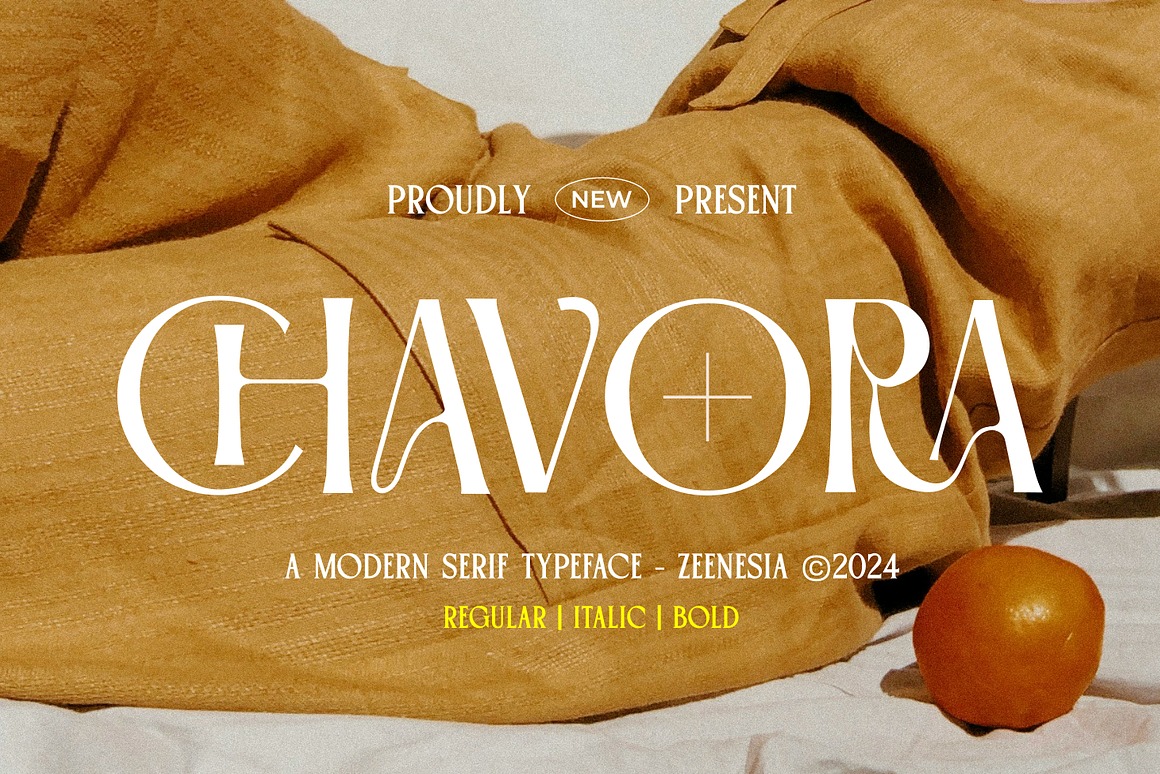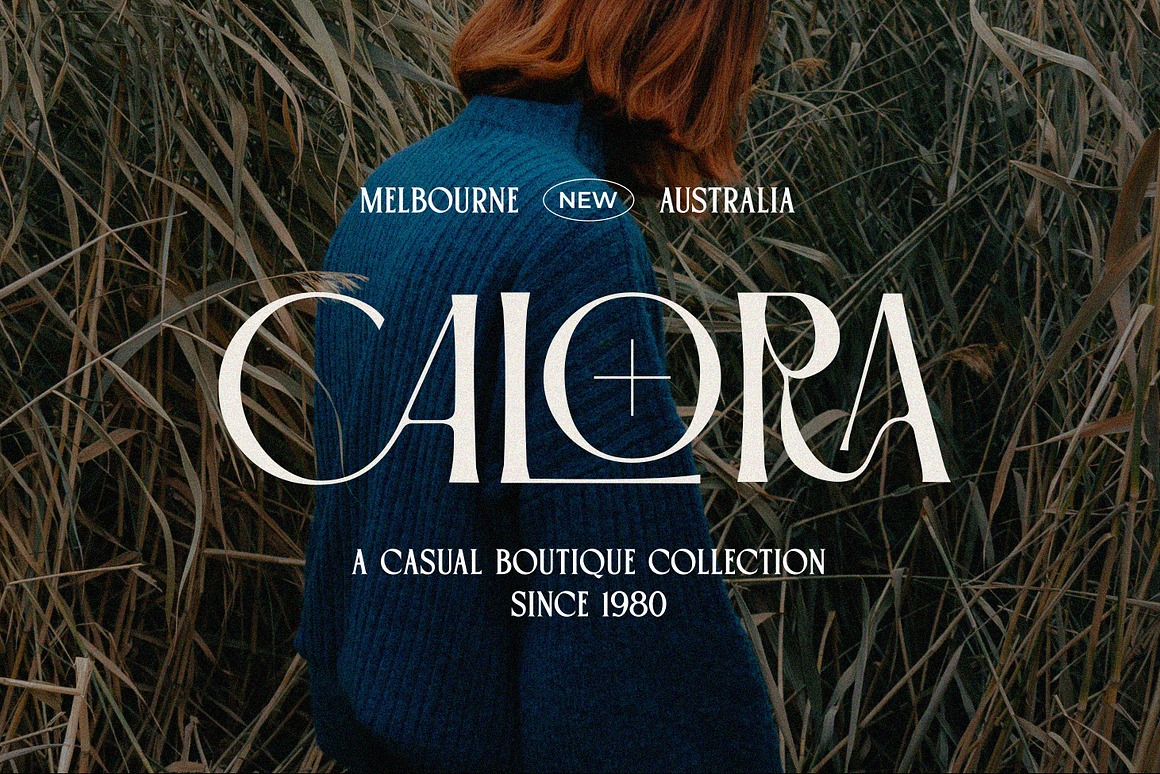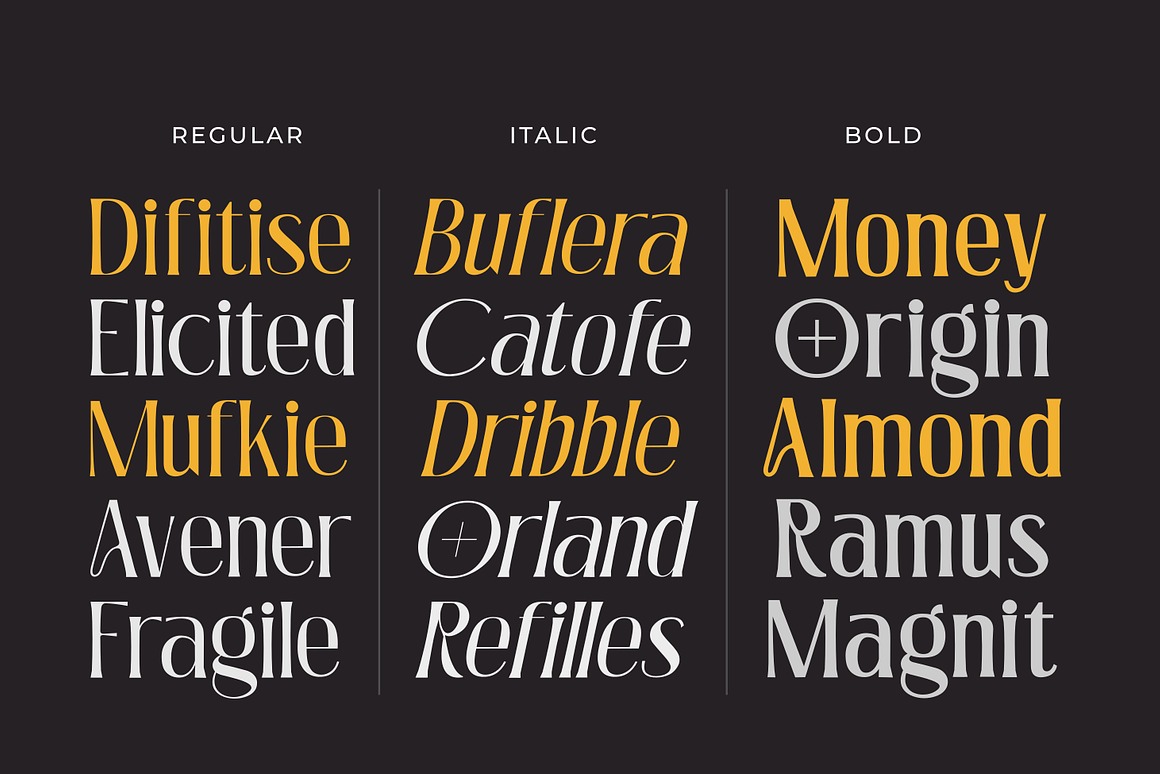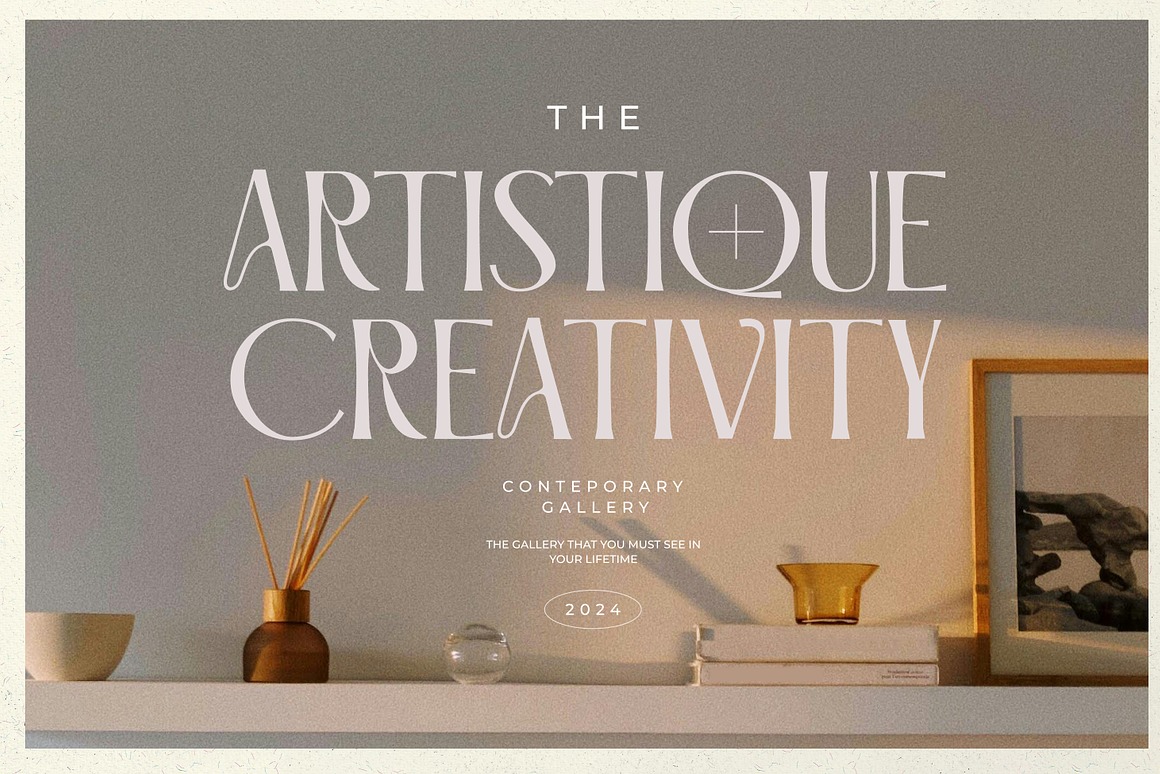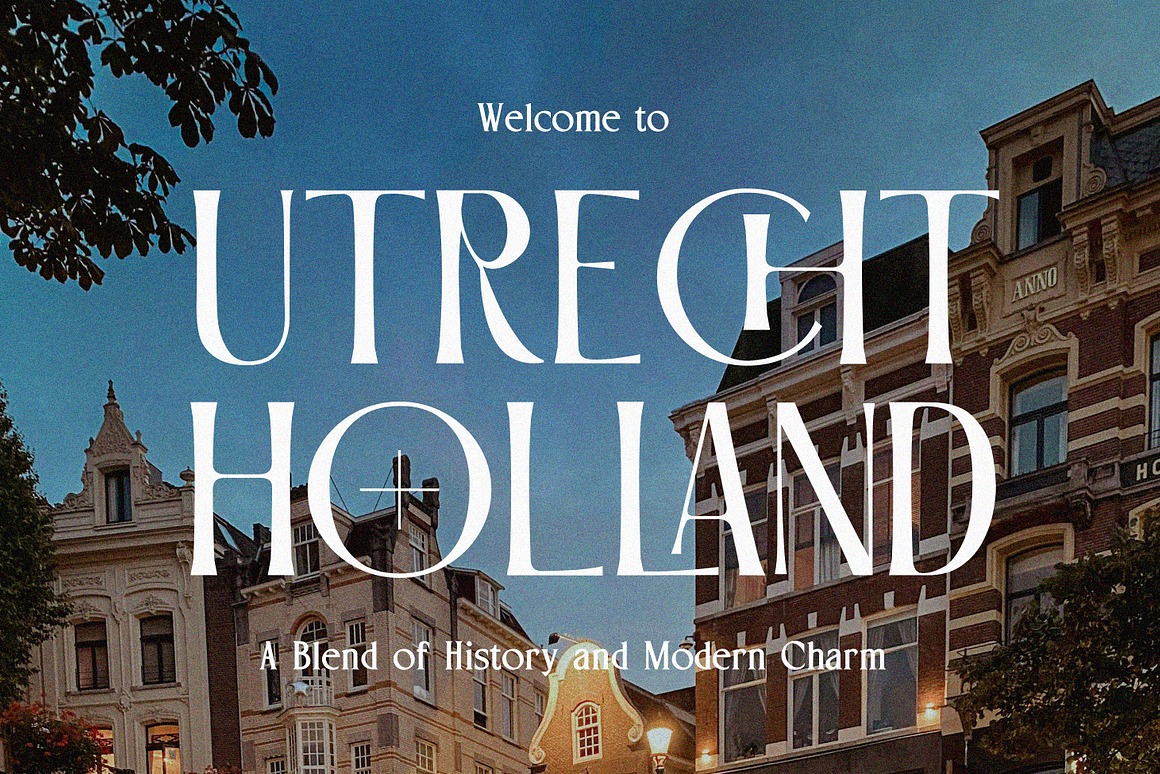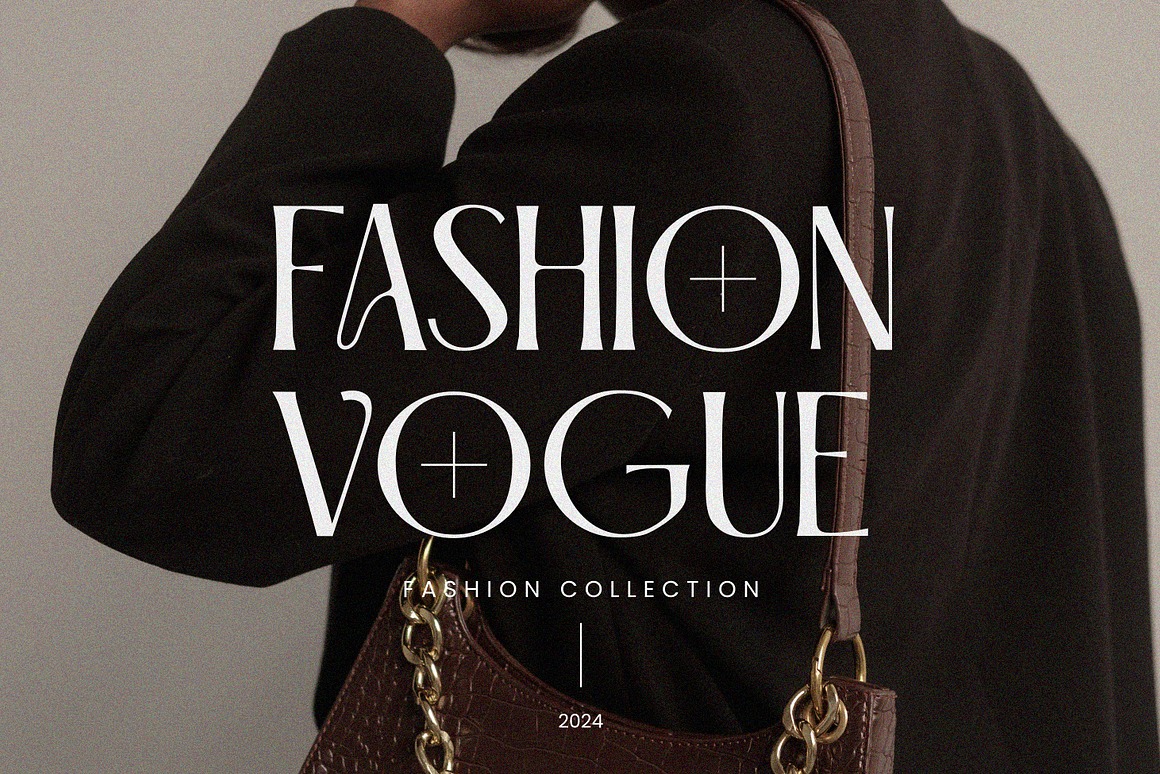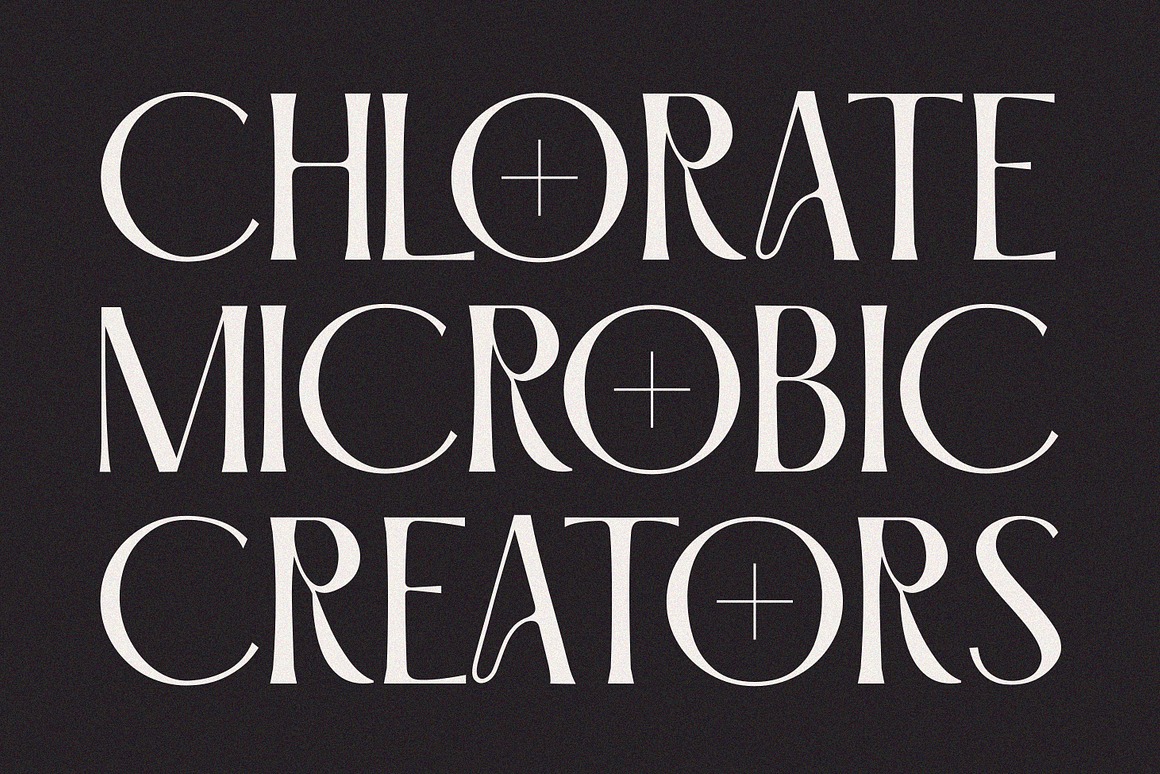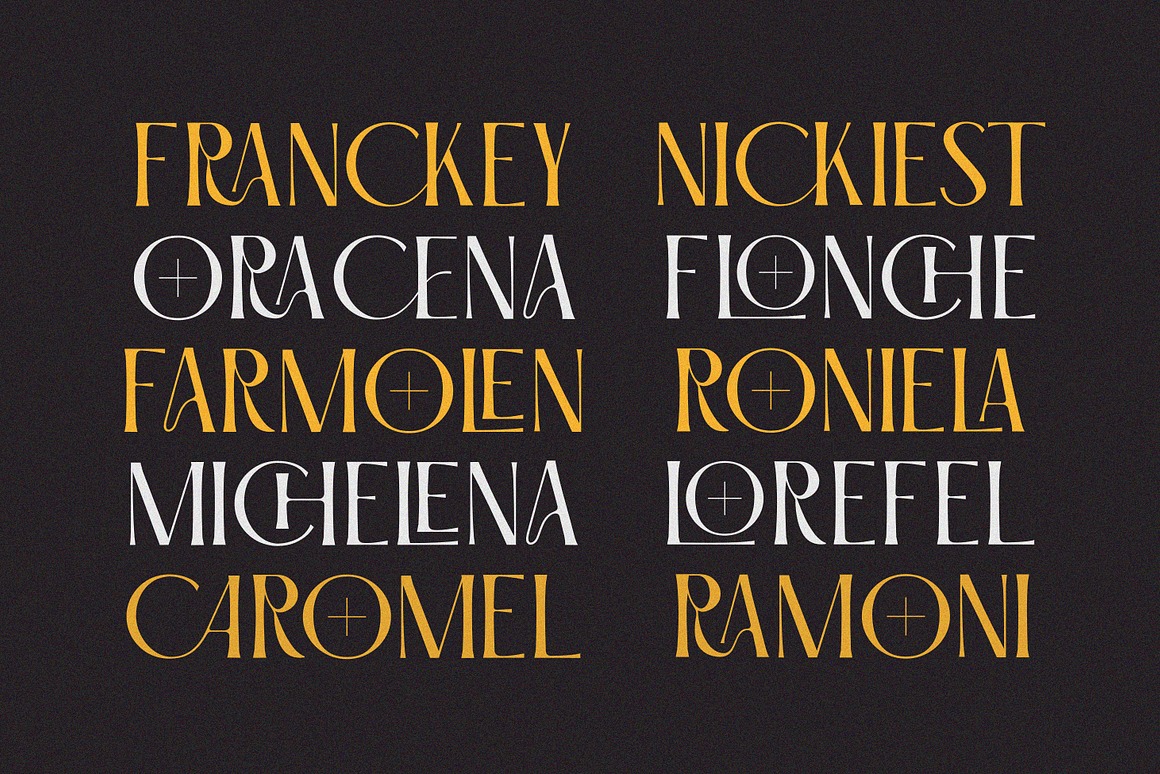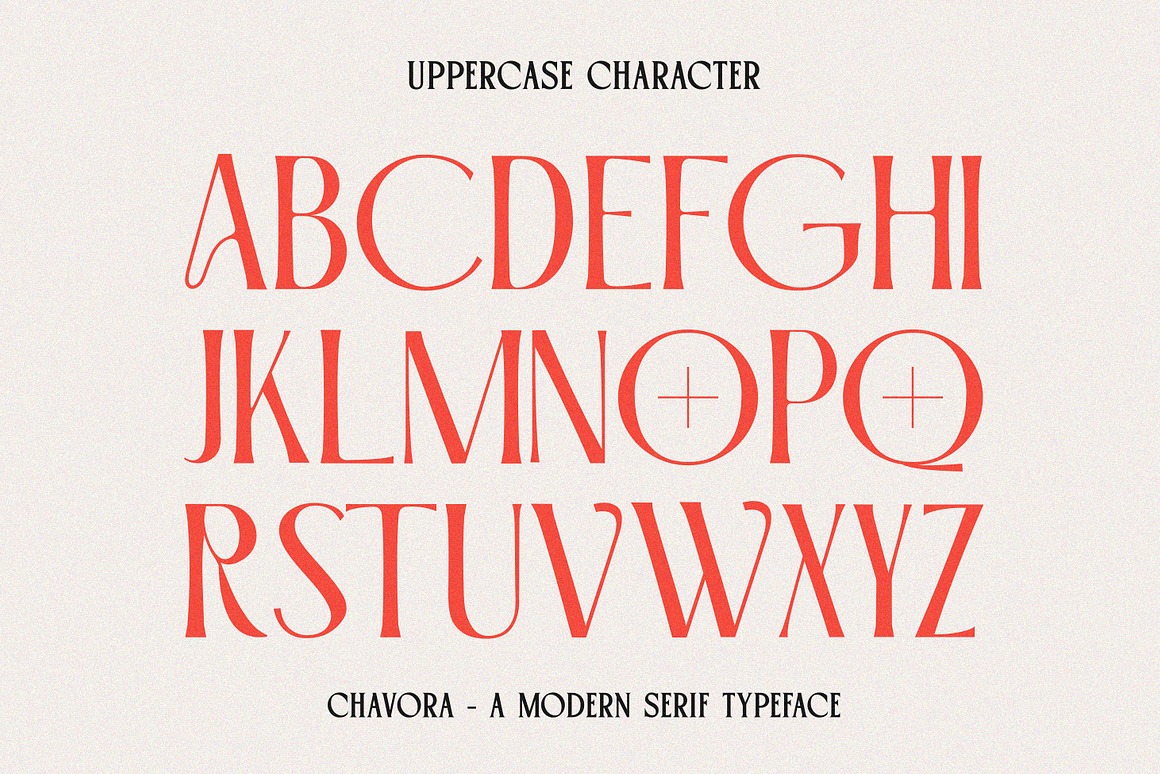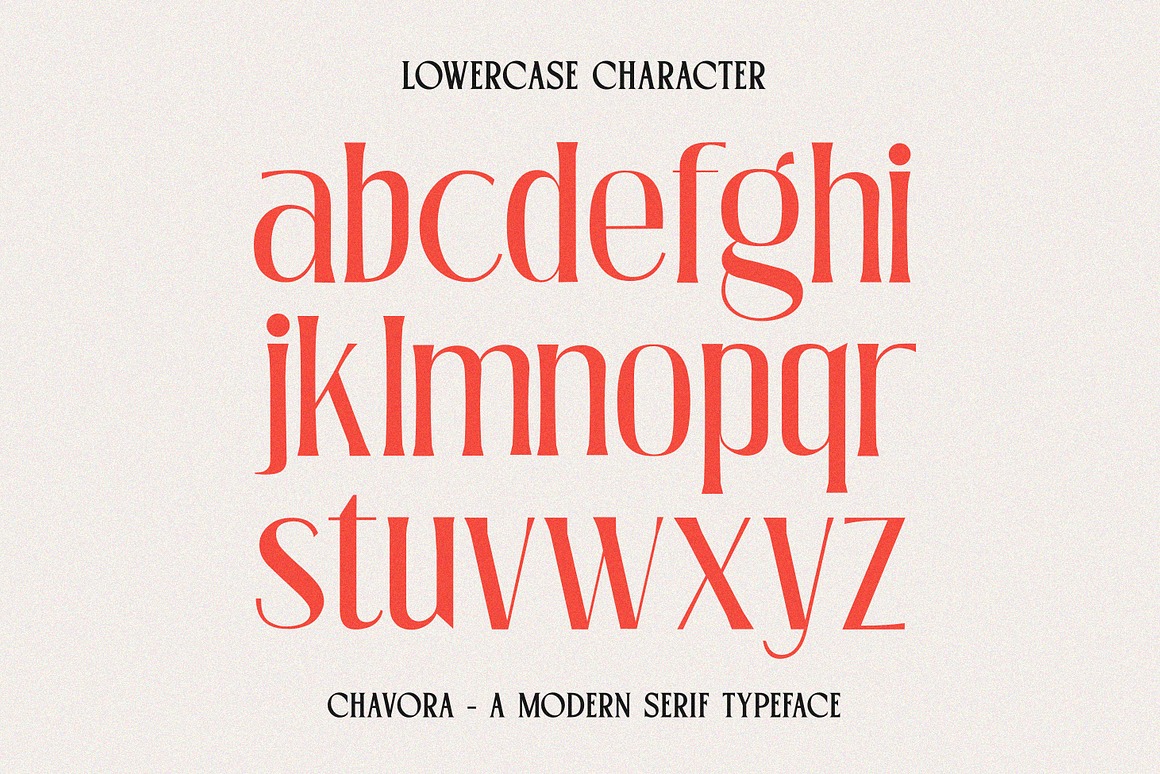
Say hello to the new modern fonts bundle — a carefully picked collection of 7 awesome fonts from 4 of our best-selling font families at Zeenesia Studio! We’ve gathered our most popular sans serif fonts in one bundle to help you create anything from sleek logos to eye-catching social media posts, modern branding, packaging, and more. Clean, simple, and super stylish — these fonts are made to make your designs shine. Whether you’re crafting logos, branding, editorial layouts, or UI design, this bundle offers a versatile range of clean, professional, and timeless sans serif styles — all in one unbeatable package.
4 Unique & Modern Display Fonts from zeenesia studio contains 7 fancy, modern, elegant & decorative display fonts in 4 families for your new projects! Don’t miss this creative & fashion style font & branding bundle 😉
- 7 awesome fonts from 4 of our best-selling font families
- Great for any branding projects, posters or T-shirt designs…
- Multilingual support, stylistic alternates & ligatures
A carefully picked collection of 7 awesome fonts from 4 of our best-selling font families!
Whether you’re a designer, a creative business owner, or just love great fonts, this bundle is packed with top-quality typefaces that are fun and easy to use.
- Our best and most-loved sans serif fonts